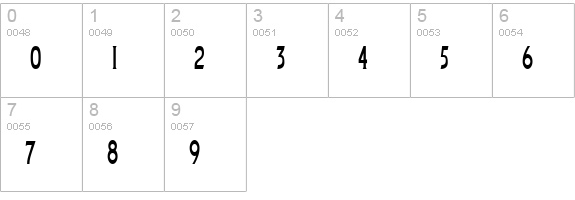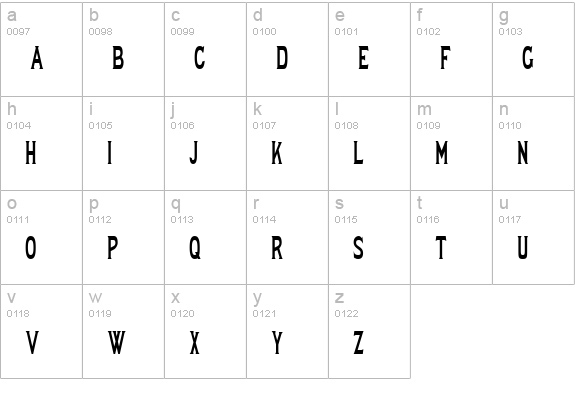
LewishamCondensed Font Details
LewishamCondensed is a sleek and modern sans-serif font that exudes elegance and sophistication. With its condensed design, this font is perfect for creating striking headlines, bold statements, and eye-catching designs. The tall and narrow letterforms give LewishamCondensed a unique and stylish look that is sure to stand out. What's even better is that LewishamCondensed is available for free download at FontsMarket.com! This means you can easily add this stunning font to your collection without any cost. Whether you're working on a branding project, poster design, or website, LewishamCondensed will elevate your work and make a lasting impression. Don't miss out on this fantastic opportunity to enhance your designs with the beauty of LewishamCondensed. Download it now and let your creativity shine!